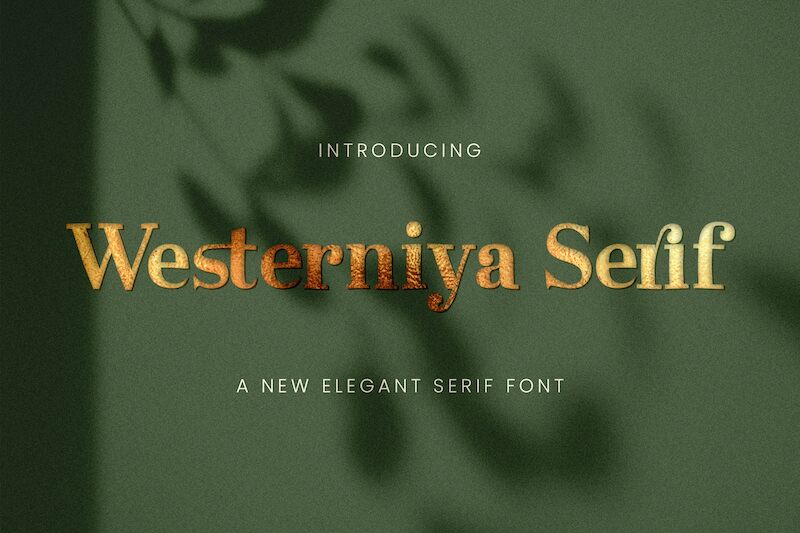
Westerniya Serif
Westerniya Serif font by StringLabs Creative Studio offers a majestic and classic style with an elegant, authoritative, and timeless appeal. Each letter achieves a balance between tradition and modern aesthetics, beautifully combining them into one appealing visual form.
This free serif typeface is perfect for labels, posters, magazines, branding, invitations, packaging design, social media posts, logos, book covers, headers & much more.